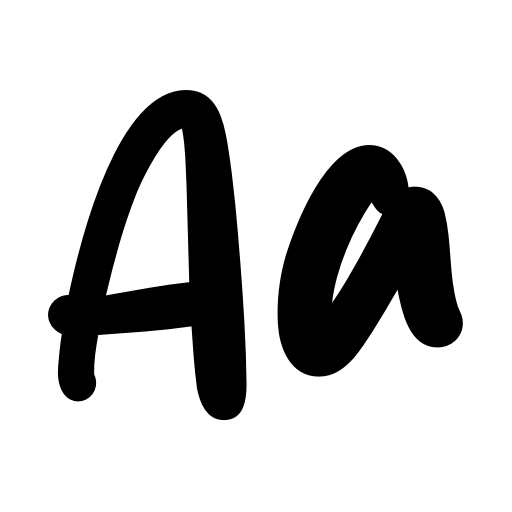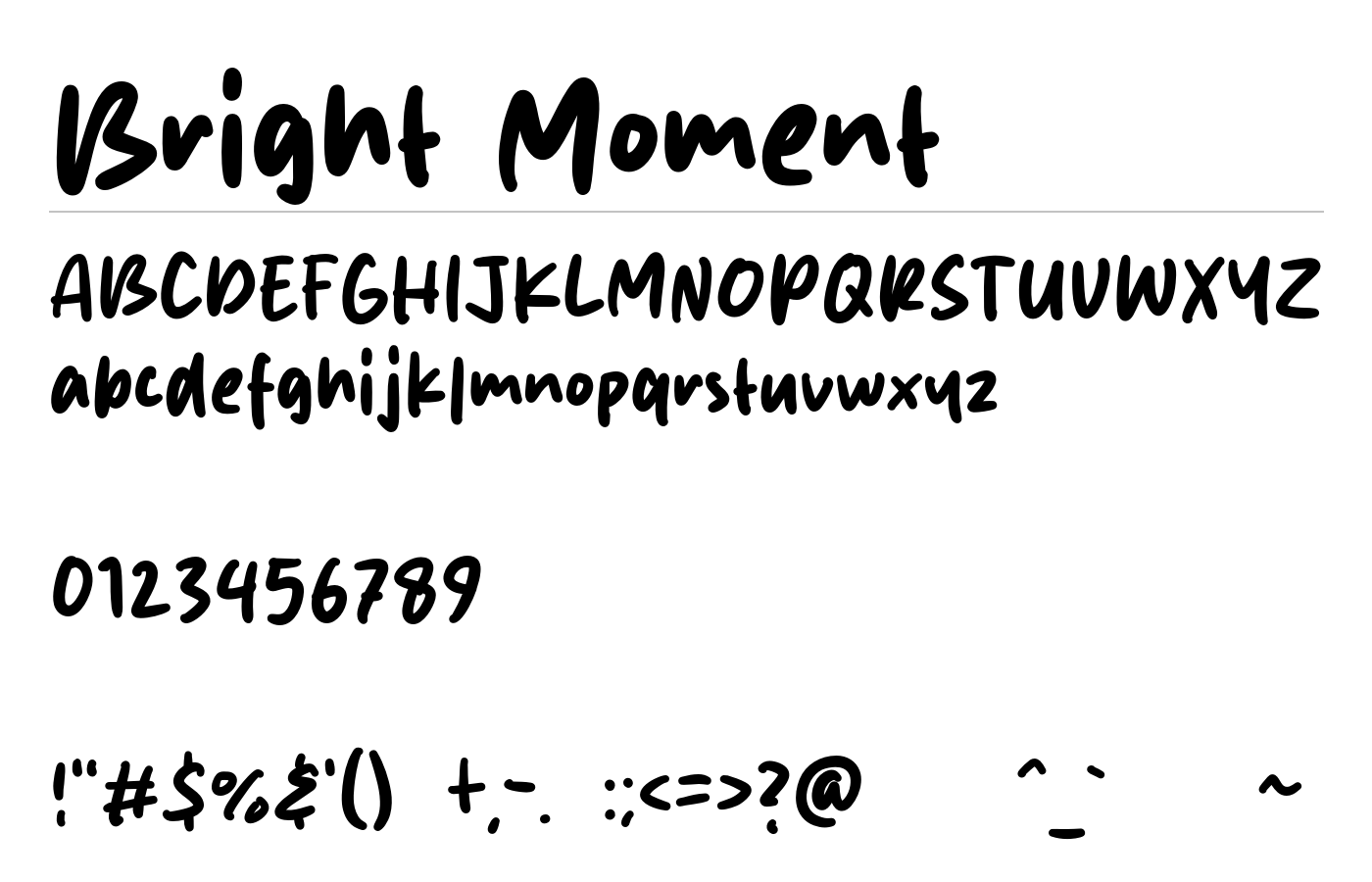
Bright Moment is a lively and casual handwritten sans serif font with a friendly, informal vibe. Its moderately thick strokes and playful letterforms give it an approachable and personal feel, making it ideal for creative projects, branding, and headlines that want to convey warmth and energy. This font works best where a cheerful, human touch is desired, such as invitations, logos, and social media graphics.
Bright Moment Font
About Bright Moment Font
| Font family | Bright Moment Font |